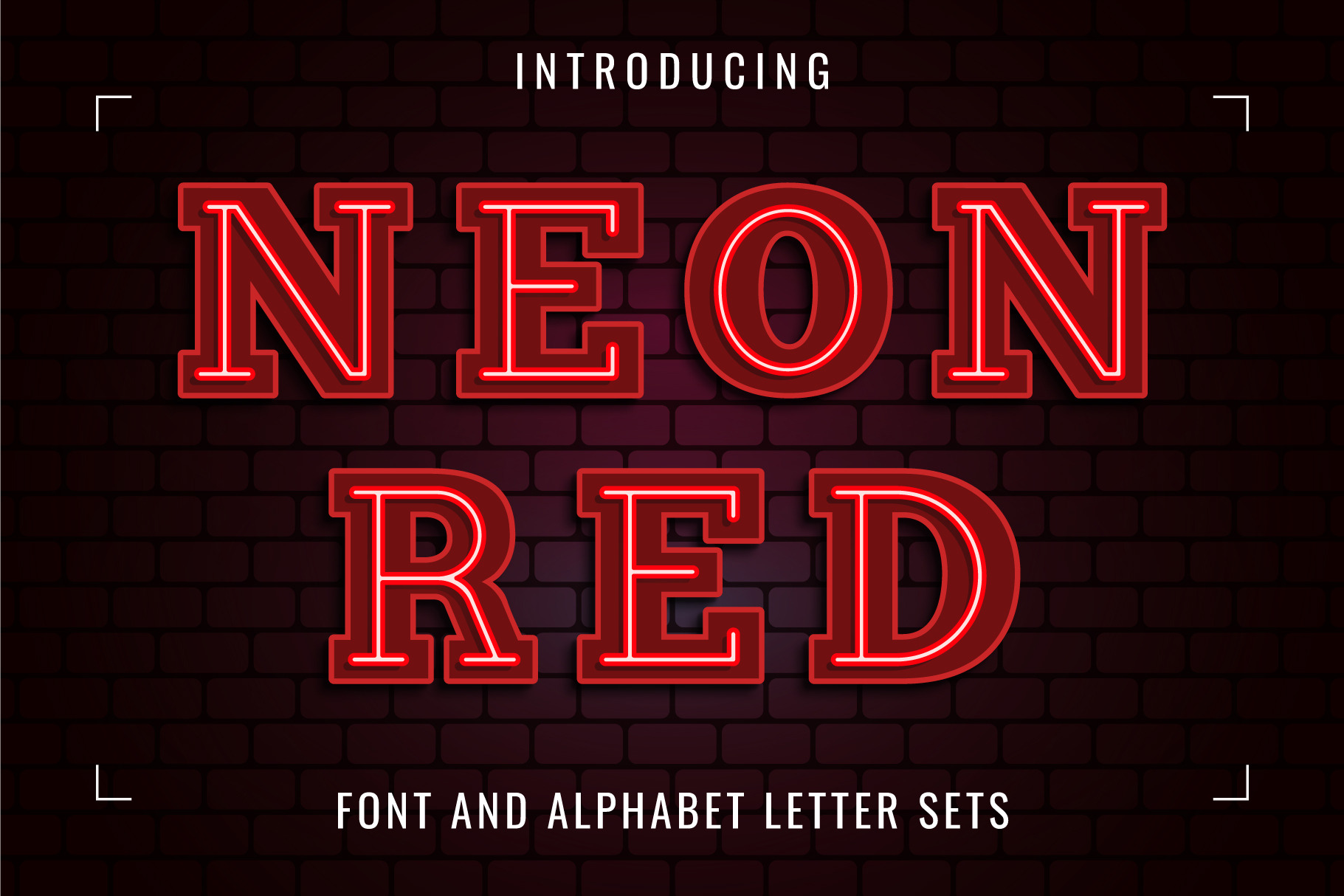
Neon Red Font
Introducing “Neon Red Font” – This charming font was created with inspiration from red neon bulbs. Its vivid hues and sleek letterforms capture the essence of urban neon signs, creating a visually striking and modern aesthetic.
FEATURE:
- This entire font is capitalized.
- Letters: A B C D E F G H I J K L M N O P Q R S T U V W X Y Z.
- Numbers: 0 1 2 3 4 5 6 7 8 9.
- Excluding punctuation.